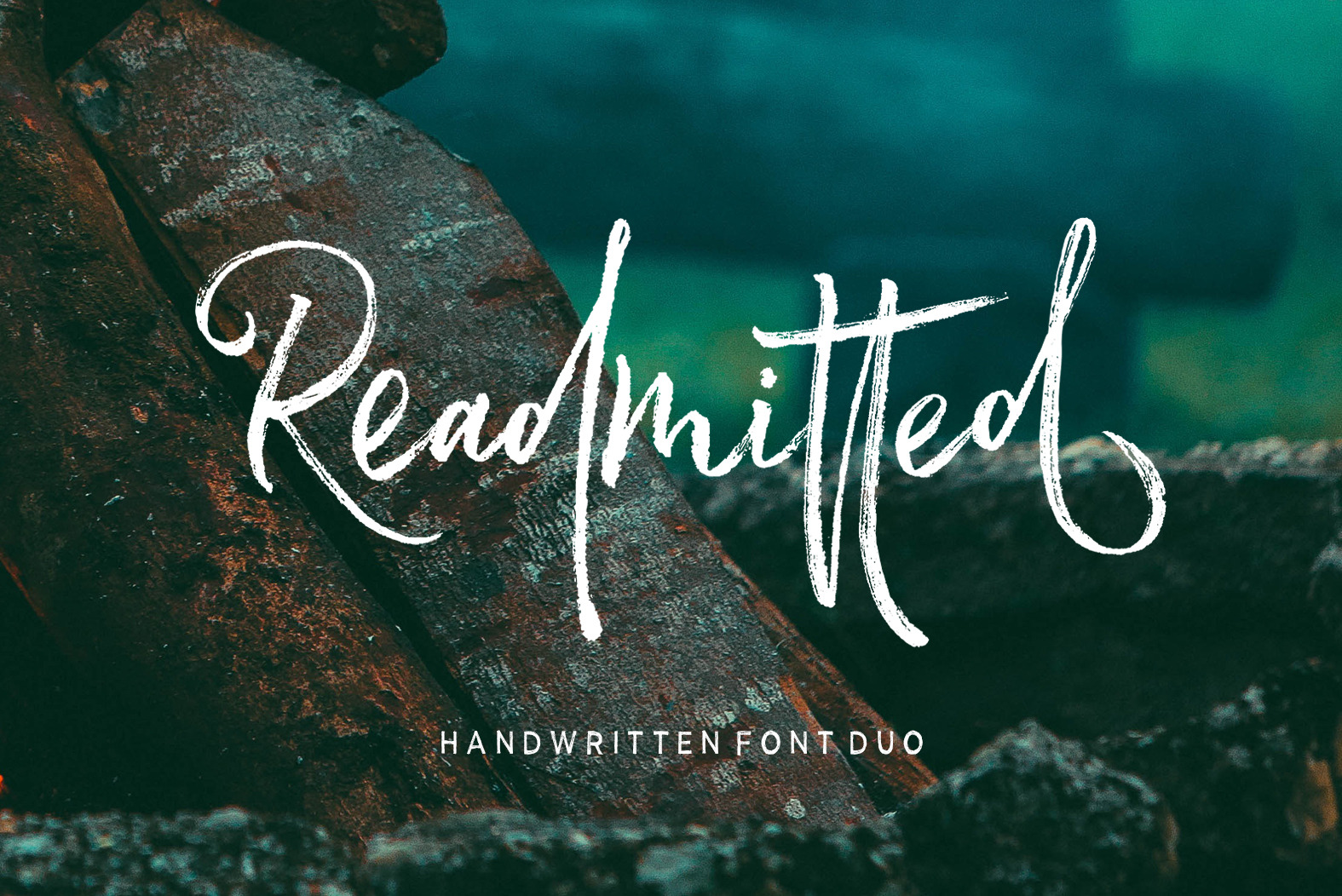
Readmitted Font Duo
Readmitted Script is a handwritten script font, based on the expression of the signature style that flows freely, friendly and organic. hand painted with love. Readmitted Script are available ligatures and alternates characters in Open Type Features. Also with additional Readmitted Sans, a font display harmony to be combined with Readmitted Script. Perfect for brand projects, logos, product packaging, posters, invitations, greeting cards, news, blogs, everything including personal charm.